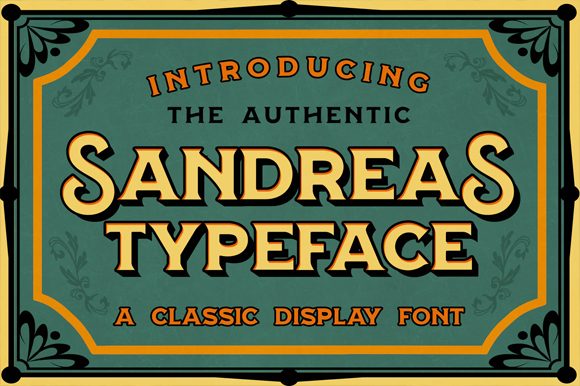
Sandreas: A Vintage Bold Display Font for Memorable Marketing
Sandreas in Social Media Campaigns and Brand Launches
As a marketing specialist, I know the power of first impressions. That’s why I turn to Sandreas, a bold display font with a vintage feel, whenever launching a new brand or campaign. Its unique character immediately grabs attention in fast-scrolling feeds, making it perfect for Instagram posts, YouTube thumbnails, and Pinterest pins. Whether you're promoting a limited-time offer or unveiling a product line, Sandreas adds an air of nostalgia and elegance that sets your content apart.
Using Sandreas for Product Teasers on Reels Covers
Reels covers are often the first touchpoint between your brand and a potential customer. With Sandreas, you can craft eye-catching teasers that hint at something special without saying too much. The font's vintage aesthetic pairs well with retro-inspired visuals or minimalist designs, helping your brand stand out in a sea of sameness. Just overlay a short phrase like "Coming Soon" or "New Era Ahead" in Sandreas, and watch your engagement rates climb.
Sandreas for Email Headers and Webinar Banners
Email marketing remains one of the most effective digital strategies, but subject lines alone aren’t enough. The header design of your email must reinforce your message. Sandreas brings a dramatic flair to headers, especially when used in high-contrast color schemes. Similarly, webinar banners demand clarity and impact—Sandreas delivers both with its strong visual presence and clean readability, even in shorter formats.
Designing with Sandreas for High-Conversion Landing Pages
Landing pages need to convert quickly, and typography plays a key role in guiding the user's eye. As a display font, Sandreas is ideal for headlines, subheadings, and callout sections where you want to emphasize urgency or exclusivity. Pair it with a modern sans serif typeface for body copy to maintain a balance between creativity and legibility. This contrast helps build a stronger visual hierarchy, directing attention exactly where it needs to go.
Creating Scroll-Stopping YouTube Thumbnails with Sandreas
YouTube is a battleground for video visibility. Thumbnails with weak typography get overlooked. Sandreas offers a compelling solution by combining boldness with a nostalgic edge. It works particularly well for lifestyle, fashion, or creative content where personality matters. Use it for titles like "5 Vintage Looks You’ll Love" or "A Throwback Journey," and ensure your thumbnails stop scrollers in their tracks.
Font Pairing Strategies for Maximum Impact
Pairing Sandreas with the right supporting fonts is crucial for maintaining balance. For a more editorial tone, combine it with a classic serif typeface. In digital ads or web banners, a sleek sans serif font complements its vintage charm while keeping captions clear and easy to read. Always consider the platform and audience before choosing a secondary font. These pairings help maintain visual consistency across your brand's digital assets.
Branding Consistency Across Platforms with Sandreas
Brand identity isn’t just about logos—it’s about how every piece of communication feels visually. Sandreas allows for consistent use across various platforms, from website banners to Instagram stories. Its versatility ensures that whether you're designing a promo graphic for a seasonal sale or crafting a logo mark for a boutique, the font maintains a cohesive look and feel. This kind of typeface is invaluable for small business marketing teams who need a single tool to unify their brand voice.
Sandreas for Website Banners and Digital Ads
Website banners and digital ads require fonts that command attention without overwhelming the viewer. Sandreas fits this requirement perfectly, especially when used for short text elements like taglines or promotional headlines. Its vintage appeal gives a sense of authenticity and trust, which is essential in e-commerce and online shop promotions. When applied strategically, Sandreas can elevate your ad copy from generic to unforgettable.
Inspiring Engagement with Sandreas on Pinterest and Blogs
Pinterest thrives on visually rich content, and blogs benefit from strong, readable headings. Sandreas is a premium font choice for both. On Pinterest, it shines in pin overlays and category headers, giving your content a timeless yet fresh appearance. For blog headers, it helps create a distinctive look that readers associate with quality and creativity. This kind of branding through typography builds recognition over time.
Readability Tips for Mobile Screens and Small Previews
While Sandreas is undeniably stylish, its effectiveness depends on how well it performs on mobile devices and small previews. Optimize spacing and avoid overcrowding characters to maintain clarity. Stick to short phrases and limit the number of words per line—especially in thumbnails or social media previews. The bold weight ensures visibility, but careful placement makes all the difference in fast-moving environments like Instagram Stories or TikTok clips.
When selecting a font for your next project, consider how it aligns with your goals. Sandreas isn’t just another display font—it’s a versatile typeface that elevates your messaging and reinforces your brand’s personality. Whether you're working on thumbnails, email headers, or campaign posters, it has the ability to transform ordinary designs into extraordinary ones. And in the world of digital marketing, that’s what separates the noticed from the ignored.